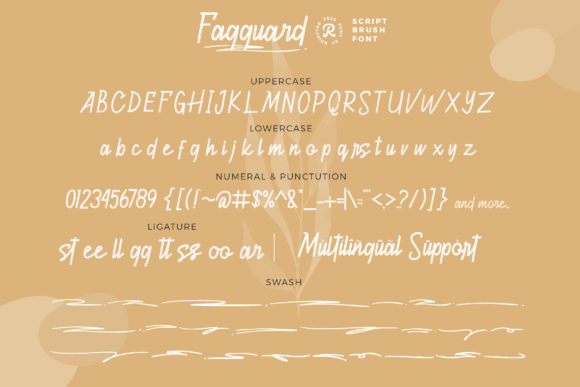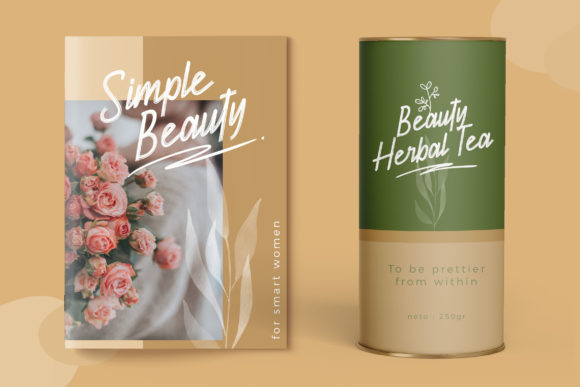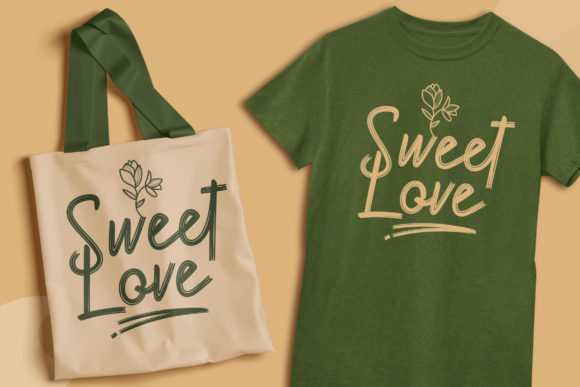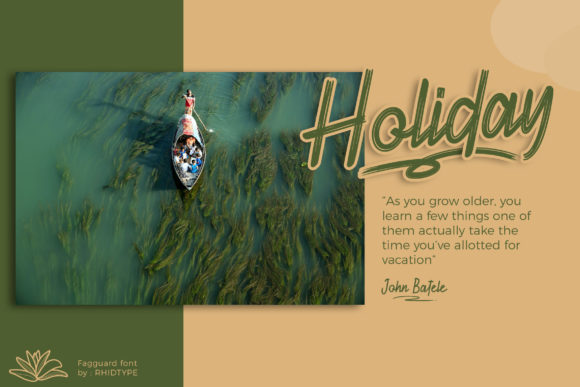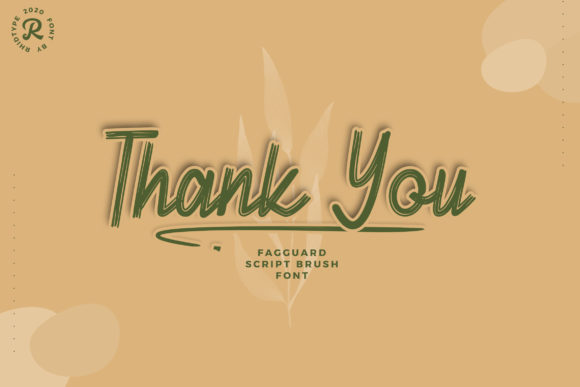
The Designer’s Delight: Uncovering the Charm of Fagguard Font
I’ll never forget the time I was working on a branding project for a boutique coffee shop. My client wanted a font that was both elegant and playful, but I was struggling to find the perfect fit. That’s when I stumbled upon Fagguard Font, a stylish and delicate brushed script font that instantly captured the essence of the brand. In this article, I’ll share my experience with Fagguard, its features, and how to make the most of it in your designs.
As a designer, I was thrilled to dive into Fagguard and explore its capabilities. Here’s what I love:
- ✨ Elegant and delicate brush strokes that add a touch of sophistication to any design
- ✅ PUA encoded, making it easy to access all glyphs and swashes
- 💫 Perfect for a variety of applications, from branding and packaging to invitations and quotes
- 🎨 Highly versatile, allowing for creative experimentation and customization
While Fagguard is an excellent font, there are a few minor quirks to be aware of:
- 🤔 Some users may find the font a bit too delicate for certain applications, such as large-scale posters or bold headlines
- ⚠️ As with any script font, it may not be the best choice for body text or long paragraphs
The Story Behind Fagguard: Designer Inspiration
While the true story behind Fagguard’s creation may be unknown, it’s easy to imagine a designer sitting at a coffee shop, sipping on a latte, and sketching out elegant brush strokes on a napkin. Perhaps the designer was inspired by the fluid movements of calligraphy or the delicate petals of a flower. Whatever the inspiration, Fagguard is a beautiful font that’s sure to bring a touch of elegance to any design.
| Q: What is Fagguard Font? | A: Fagguard Font is a stylish and delicate brushed script font, perfect for branding, packaging, invitations, and more. |
| Q: Is Fagguard Font easy to use? | A: Yes, Fagguard Font is PUA encoded, making it easy to access all glyphs and swashes. It’s also compatible with a range of design platforms, including Canva, Adobe Photoshop, and Microsoft Word. |